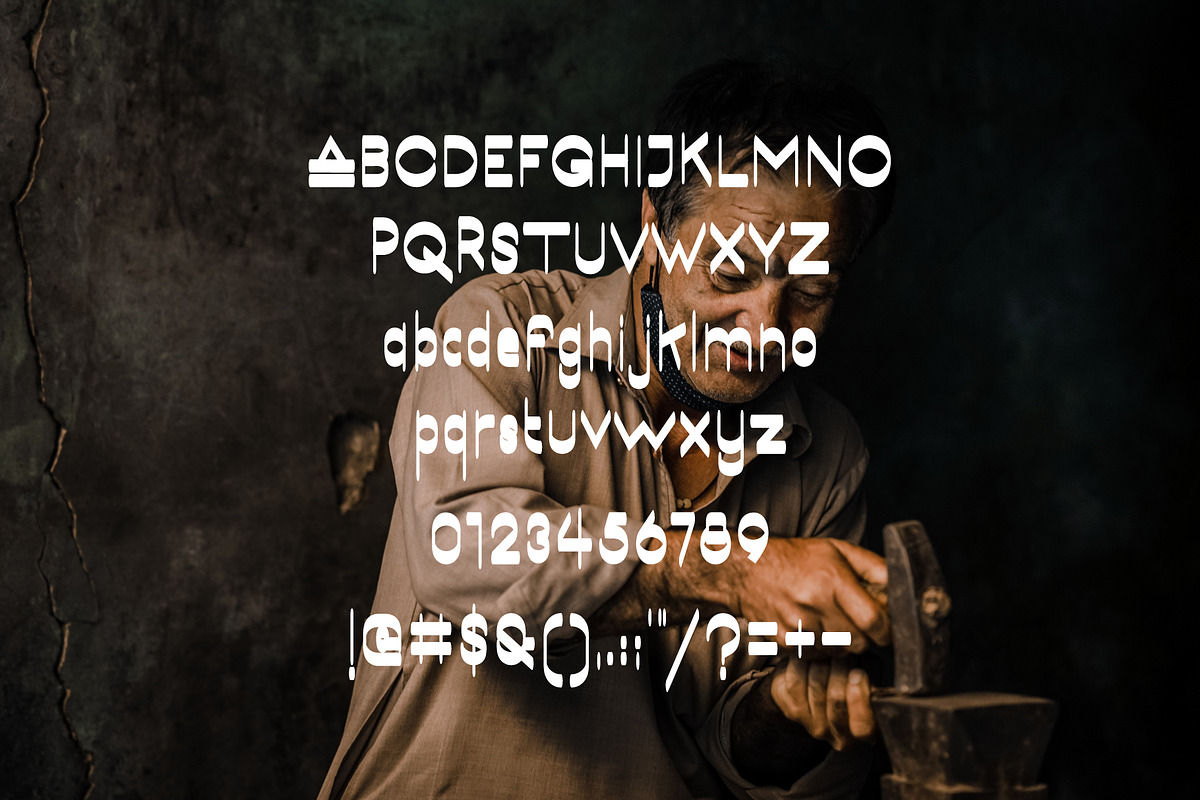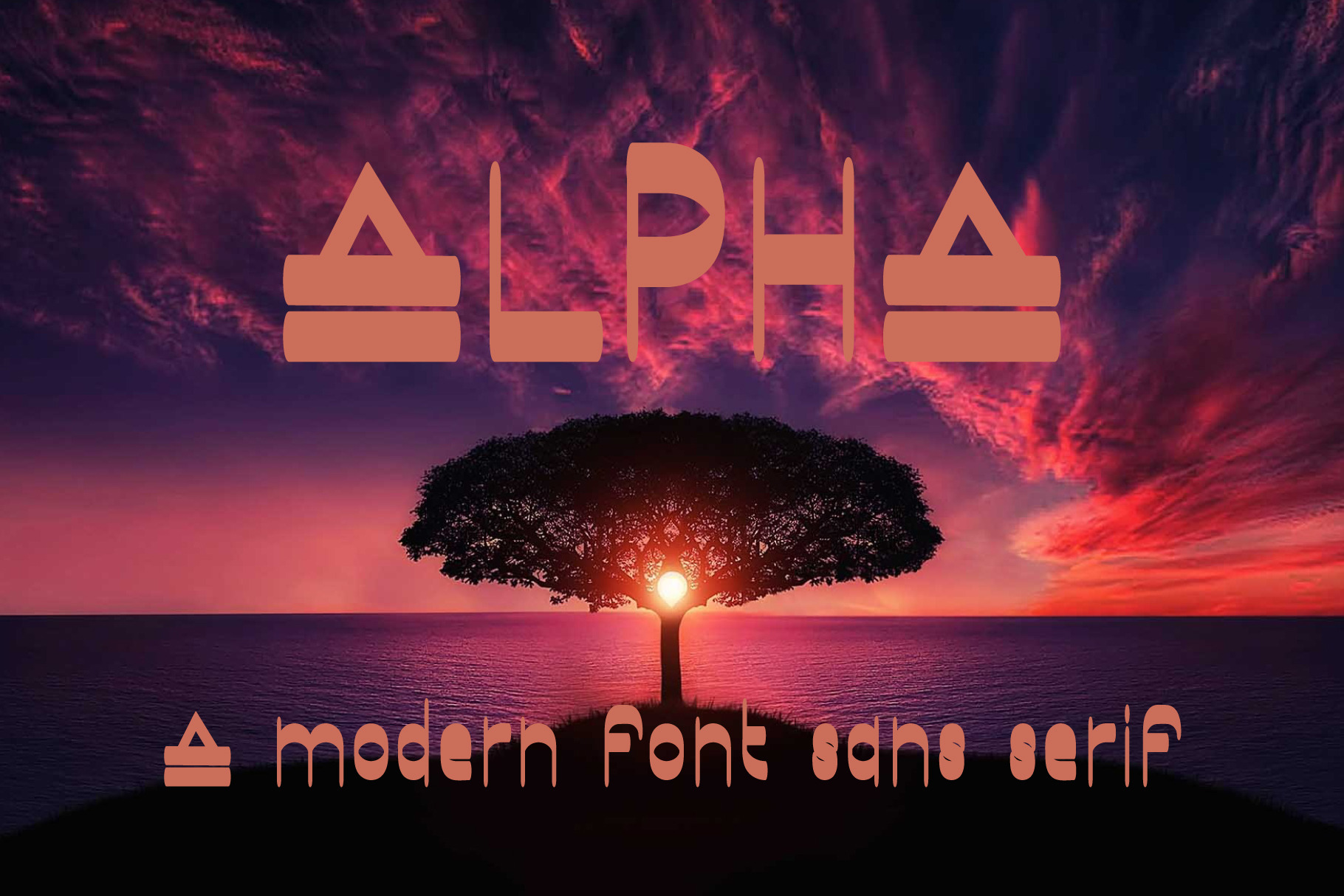
Alpha - Modern Sans Serif Font
Introducing Alpha, a modern and simple sans serif font. So perfect for you who needs a typeface for logo designs, magazine, social media, brochure, and many more.